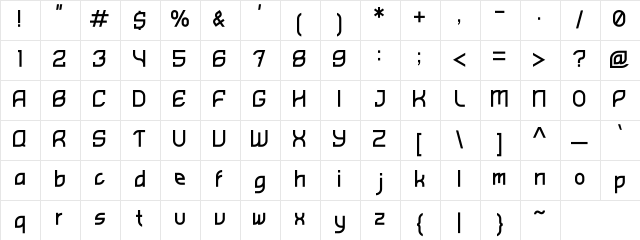
Bhofila Regular
Design Context for Bhofila Typeface
Bhofila takes a measured approach to typography — its balanced proportions and neutral character make it a reliable workhorse for both digital and print work.
Pro Tip: Use Bhofila in both headline and body roles to test its range before committing to a single application.